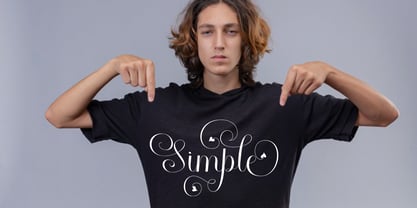
Angelisa Script
The Angelisa Script Font Family was designed by Teuku Saifullah and published by Shape Studio. Angelisa Script contains 1 styles. More about this family
Angelisa Script, is modern and classic handwritten calligraphy, so soft, perfect for your next designs, such as logos, printed quotes, invitations, cards, product packaging, headers and anything else from your imagination.
Angelisa Script allows you to create custom dynamic text. You can access by turning on; Alternative Styles, Swashes and binders in Photoshop, Adobe Illustrator, Adobe InDesign or via the glyph panel like Adobe Illustrator, Photoshop CC, Let's go from regular characters to alternate characters to get the text with the layout of your dreams. Garinstae Script also includes glyphs, punctuation, numbers and multilingual.